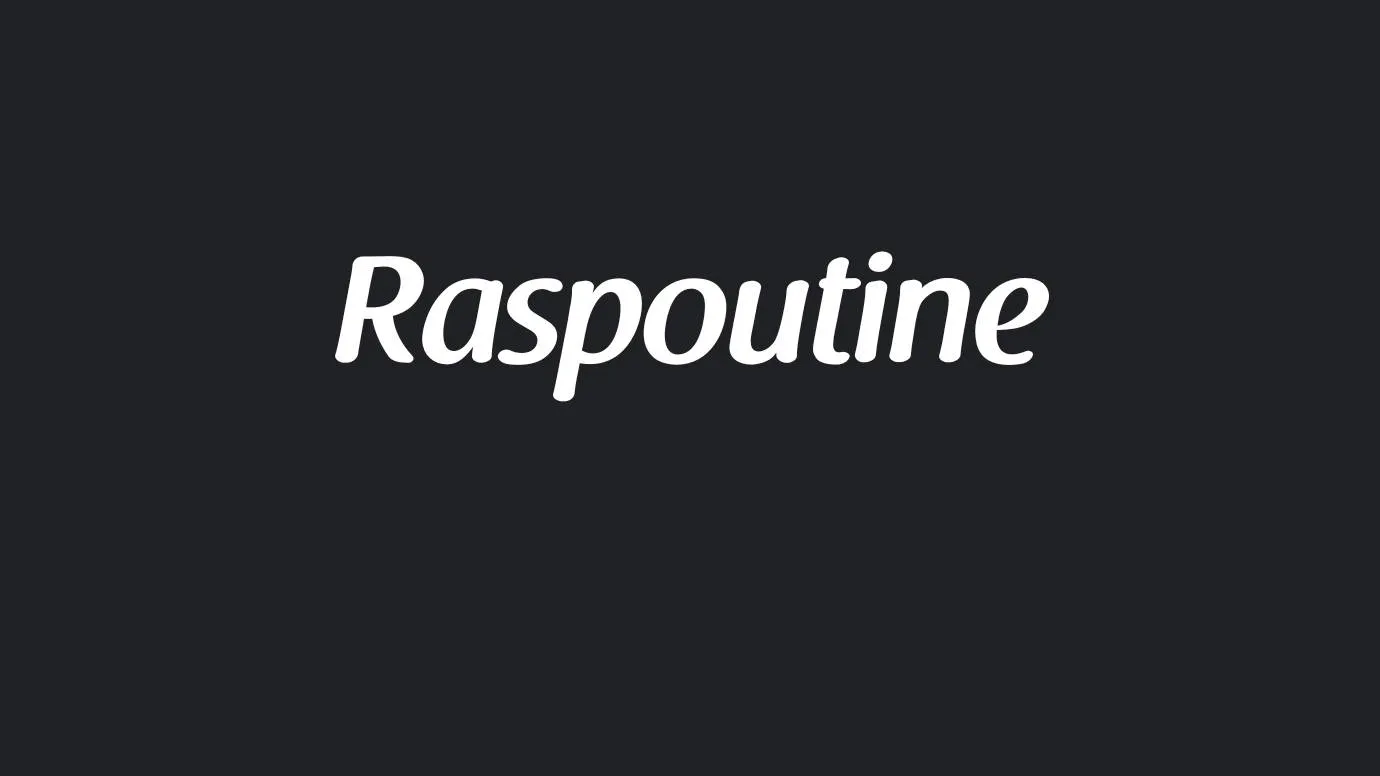
Font IntroductionRaspoutine Font
Raspoutine Font Family is a very attractive and clear typeface called Raspoutine Font. It has high readability due to its neat and clean look. This interesting font with three different styles was designed by Dimitri Castrique. You can use this font for making both personal and commercial projects. It has amazing features and weight. You can also use this font for downloading on various devices for use as this font supports two file formats TTF and OTF.
Features of Raspoutine Font
NameRaspoutine Font
DesignerDimitri Castrique
Is Raspoutine Font easy to read?
You can make all types of projects by using this font small and big you can read it even from a distance. It has high readability due to its neat and clean look.
Who designed the Raspoutine Font?
Raspoutine Font is a very attractive and clear typeface this interesting font with three different styles was designed by Dimitri Castrique.